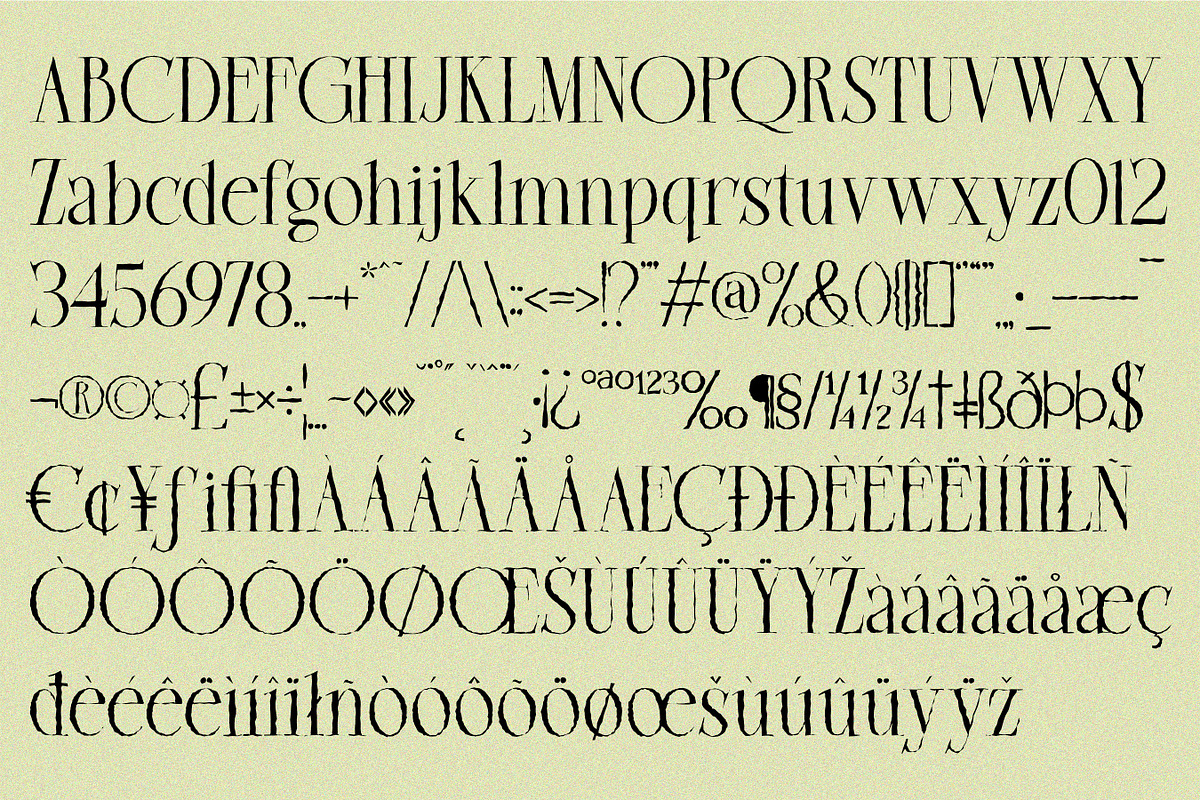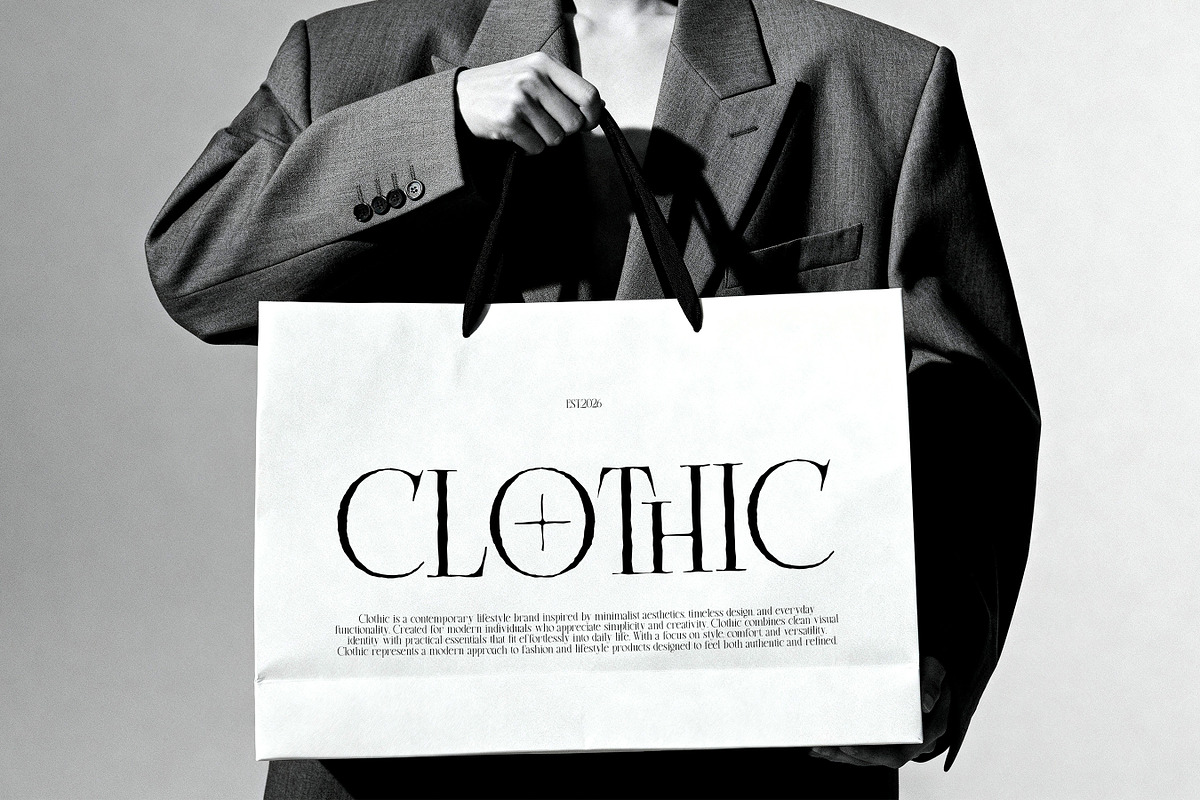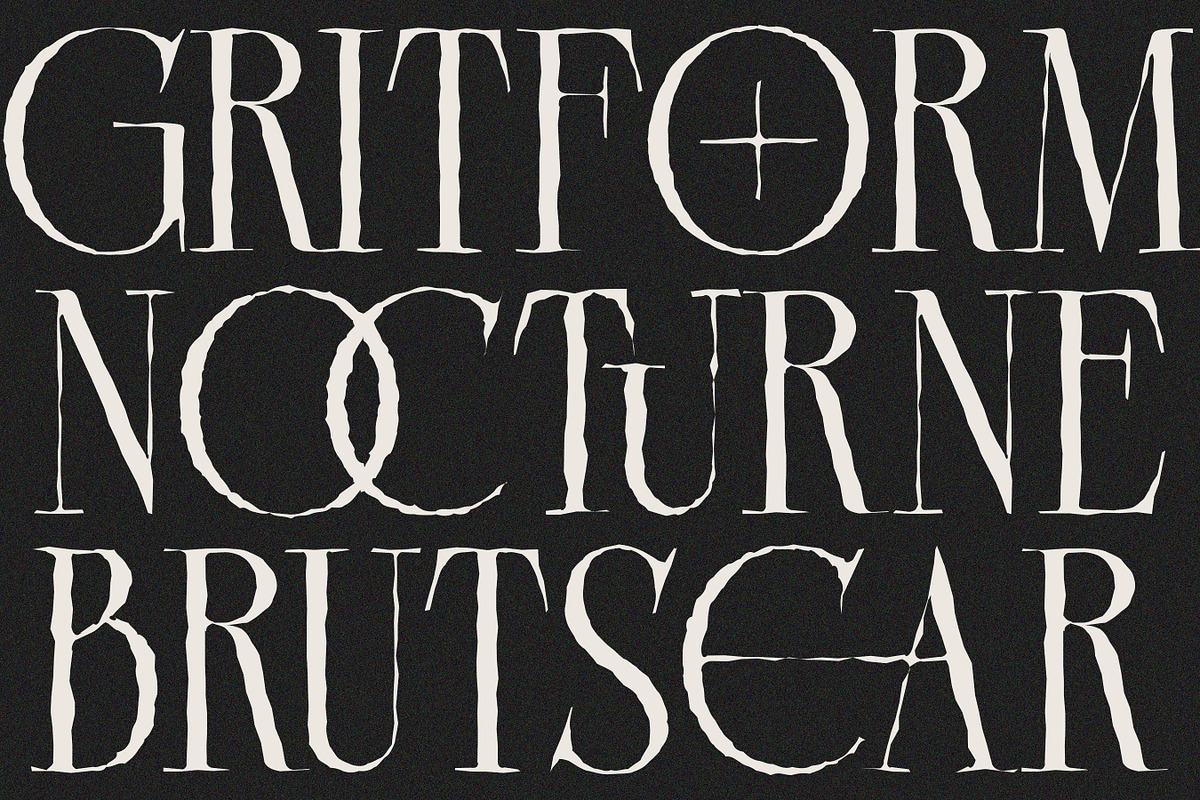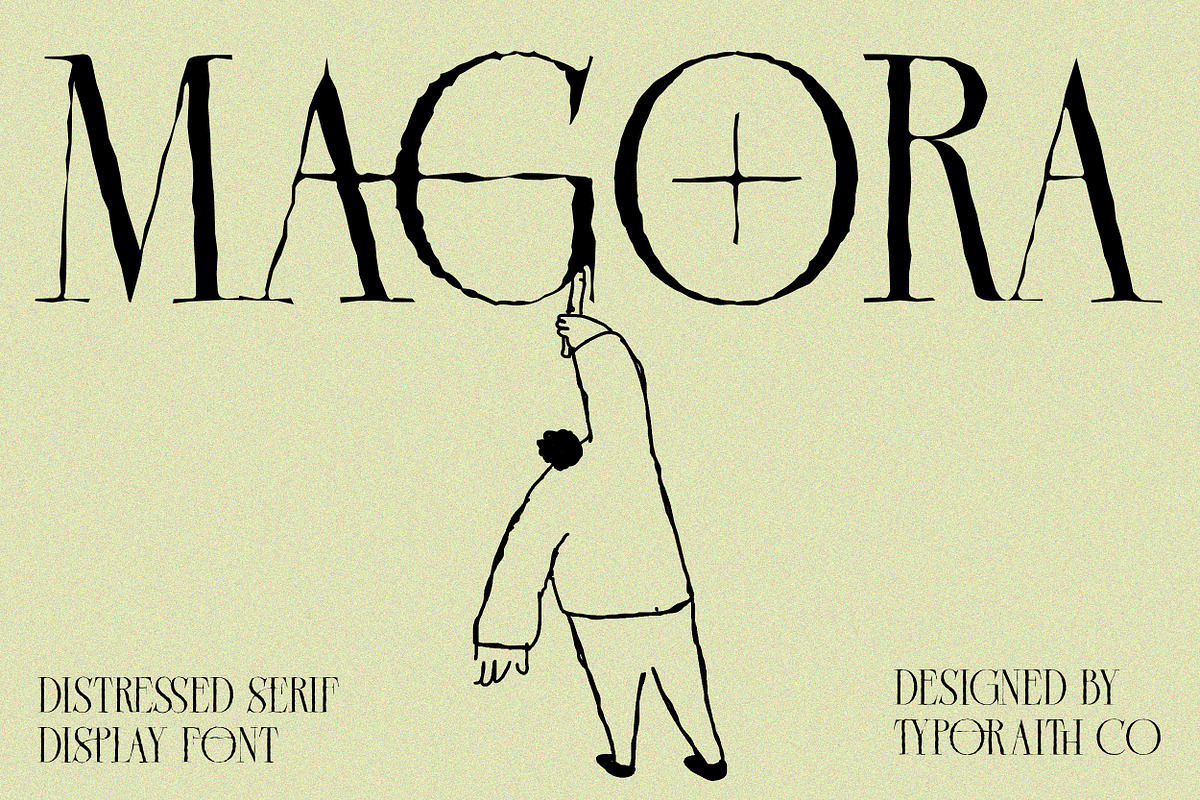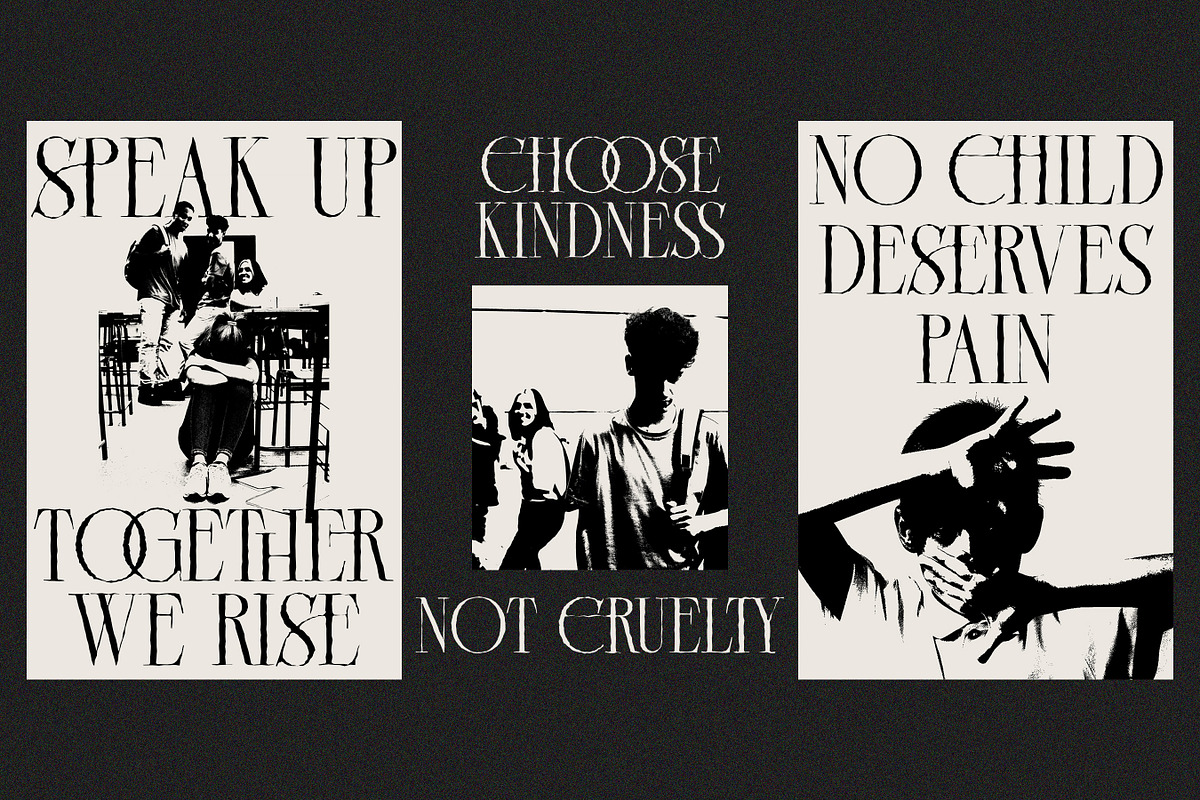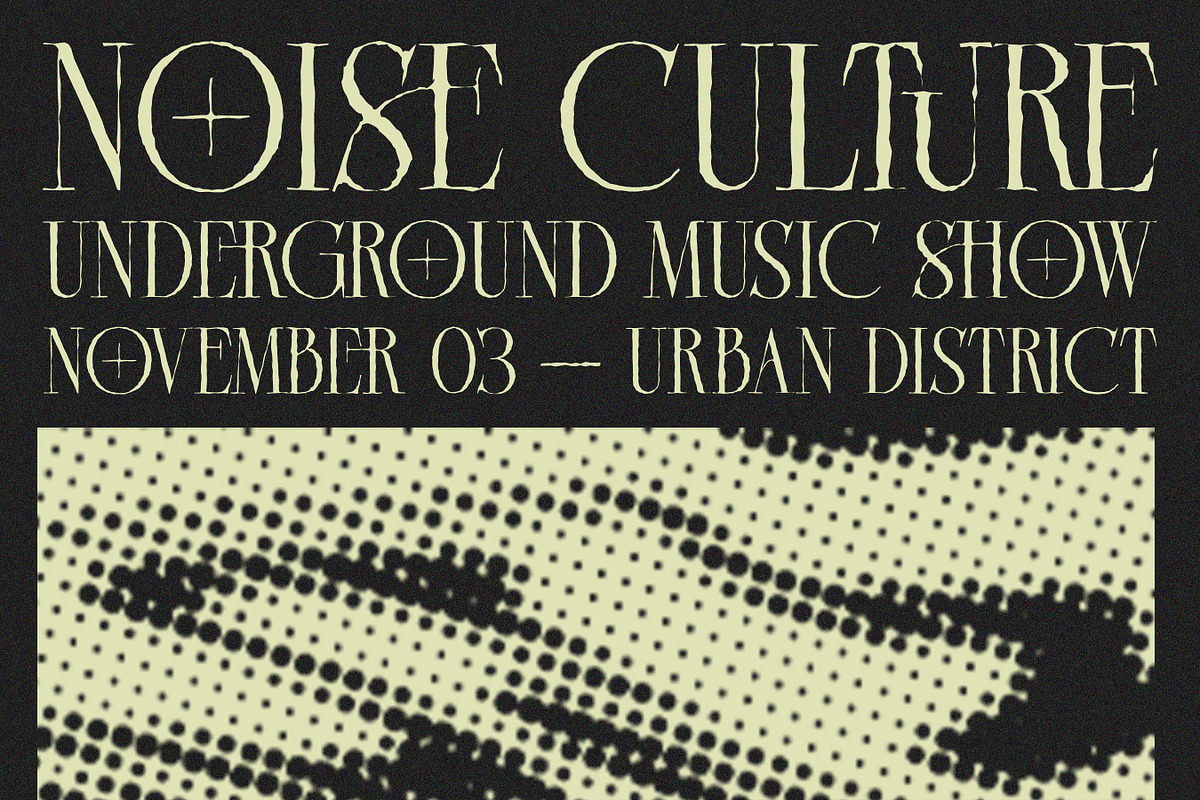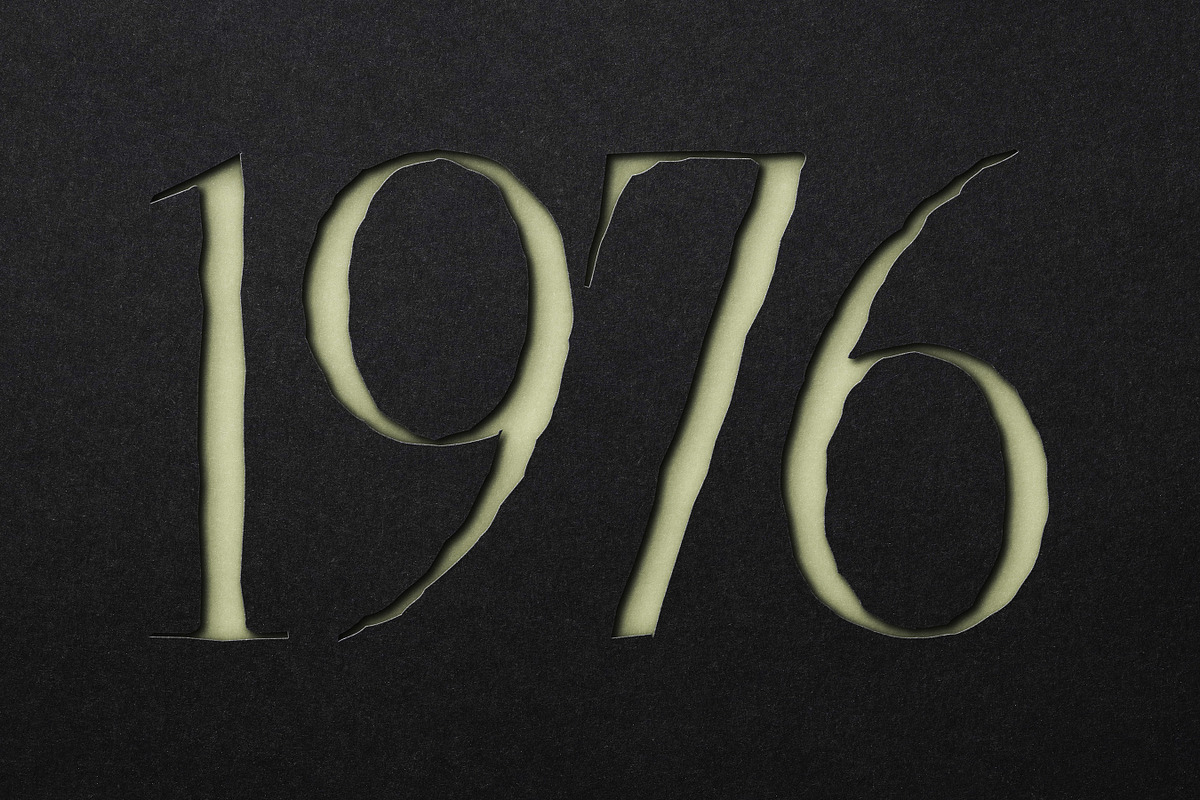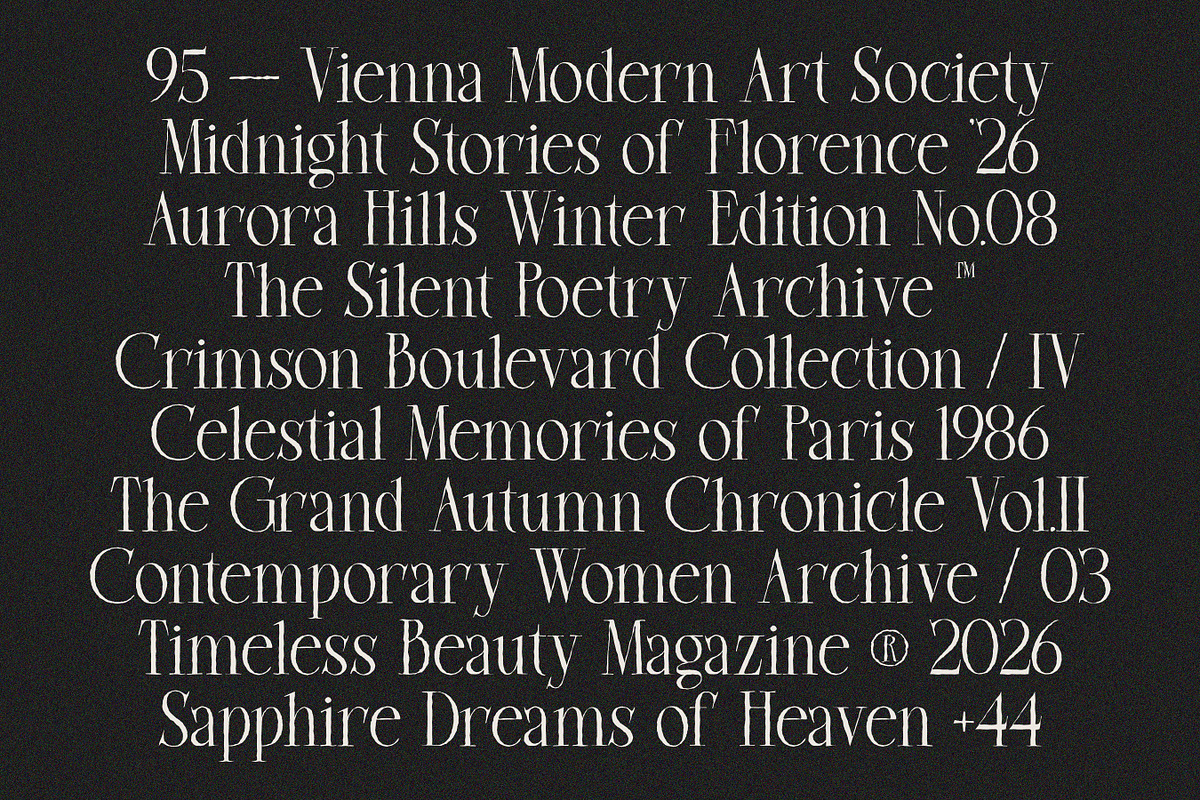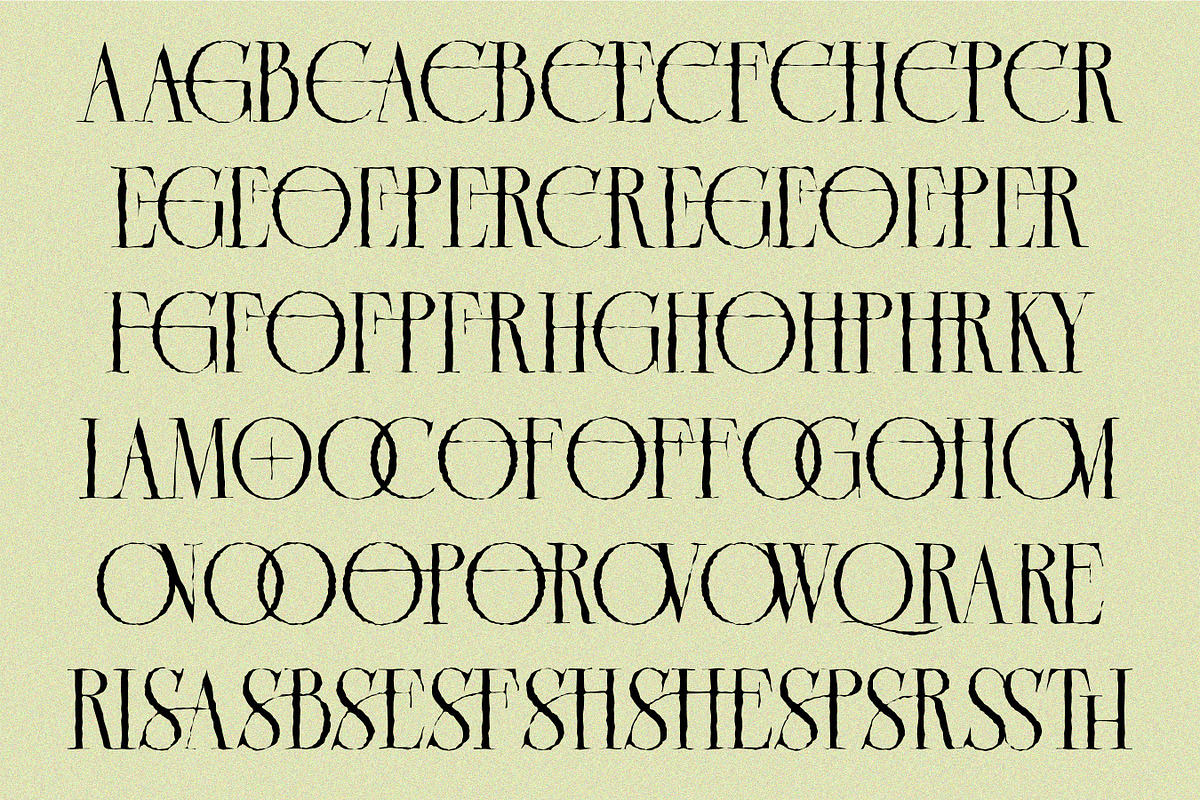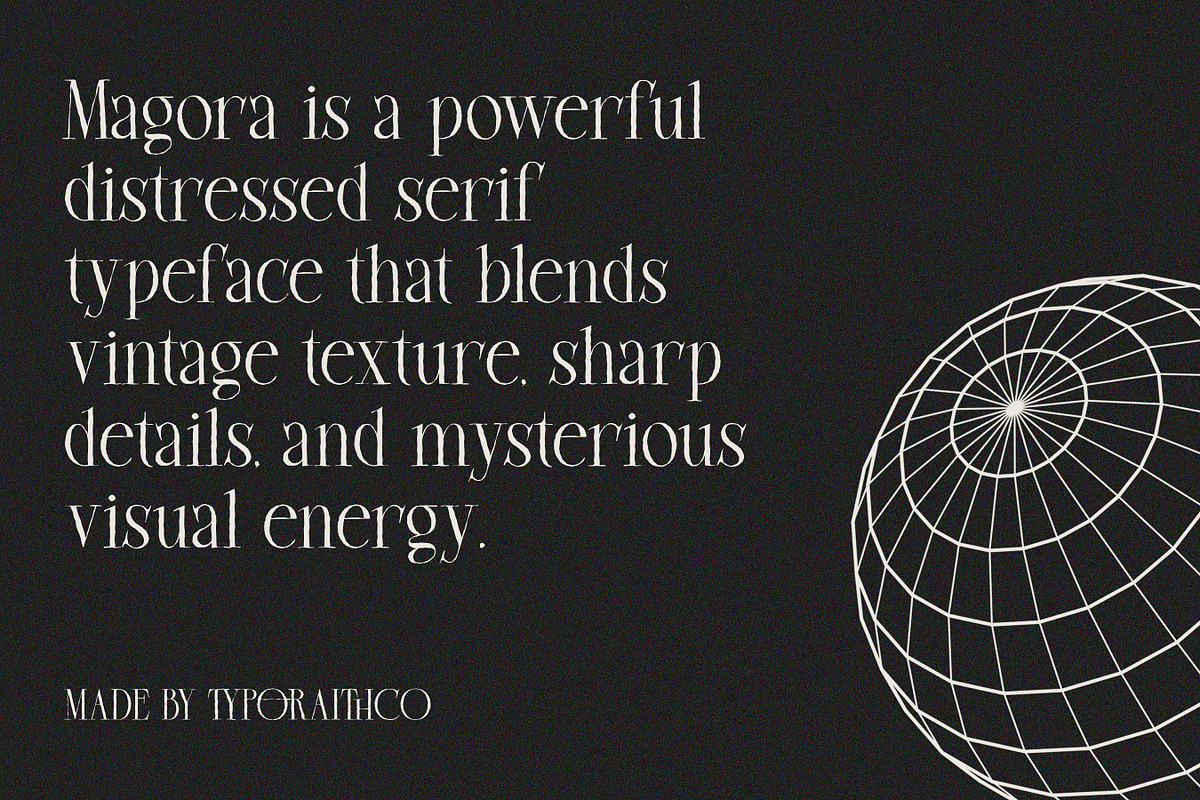
Magora | Modern Distressed Serif
Magora is a unique display serif font that blends modern elegance with raw distressed details. Designed with sharp serif forms, artistic imperfections, and handcrafted textures, Magora delivers a bold visual presence perfect for creative branding and expressive typography.
This font is ideal for fashion editorials, album covers, luxury branding, posters, packaging, cinematic titles, artistic projects, and modern gothic aesthetics. Every character is carefully crafted to create a dramatic yet sophisticated feel that stands out effortlessly.
Magora brings a mysterious and experimental atmosphere while maintaining readability and style, making it perfect for designers who want typography with strong personality and artistic emotion.
Unique Distressed Letterforms
Perfect for: Fashion Branding • Editorial Design • Poster Design • Luxury Logos • Gothic Themes • Artistic Projects • Album Artwork • Creative Headlines • Modern Vintage Design